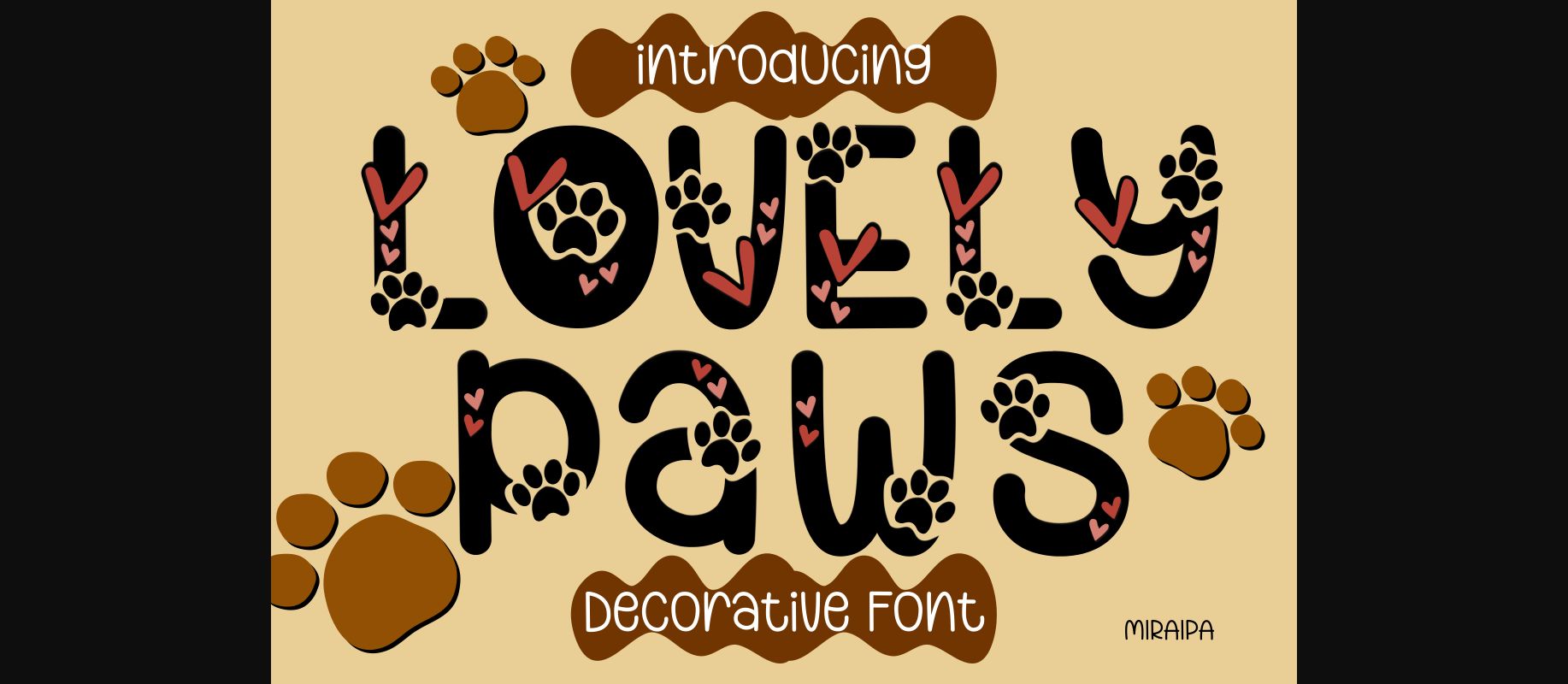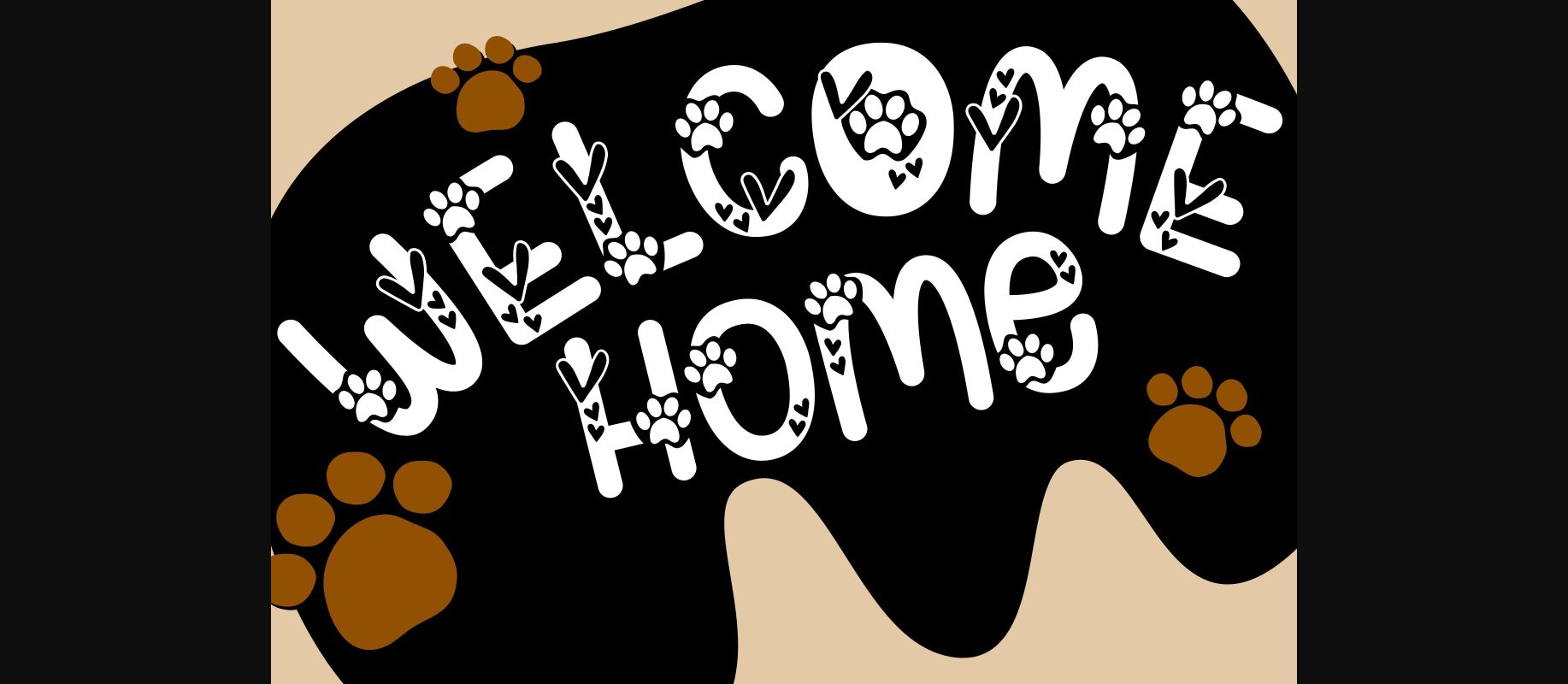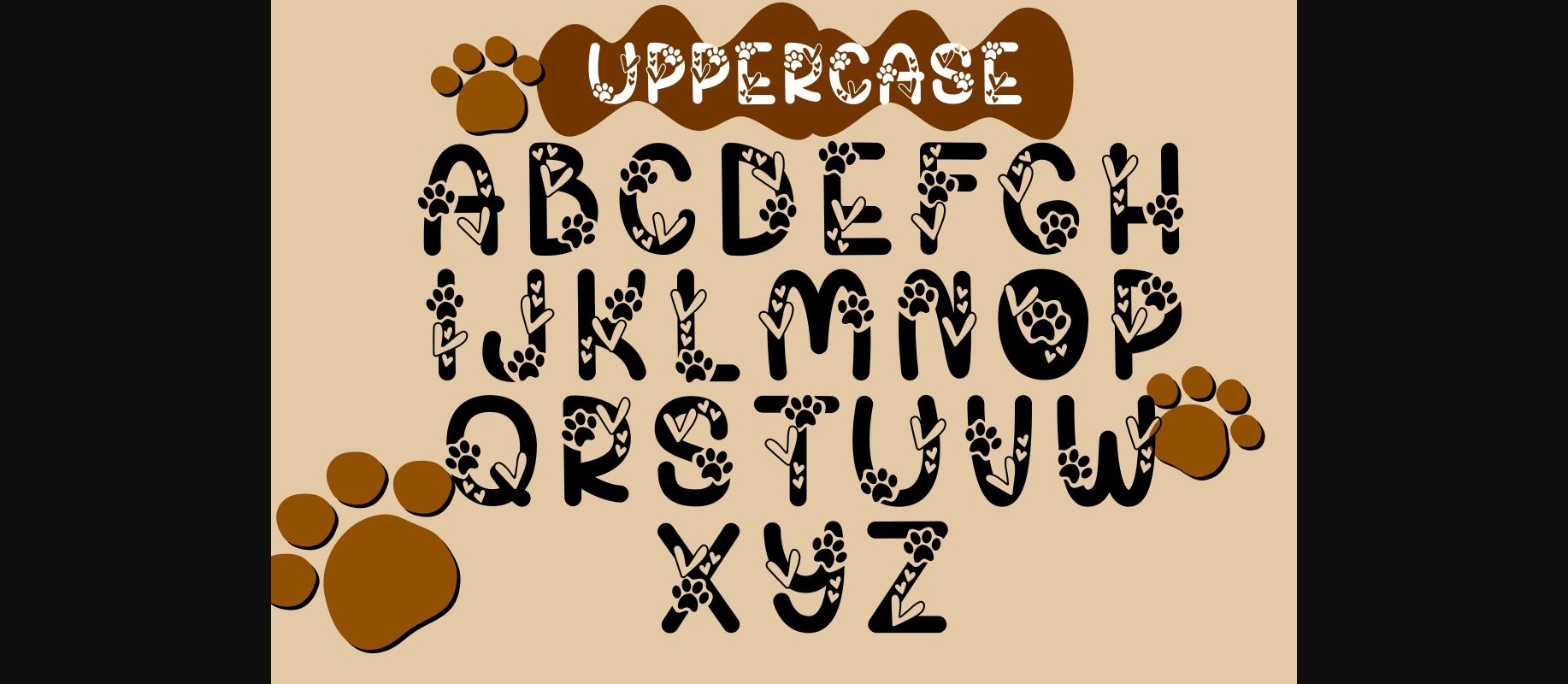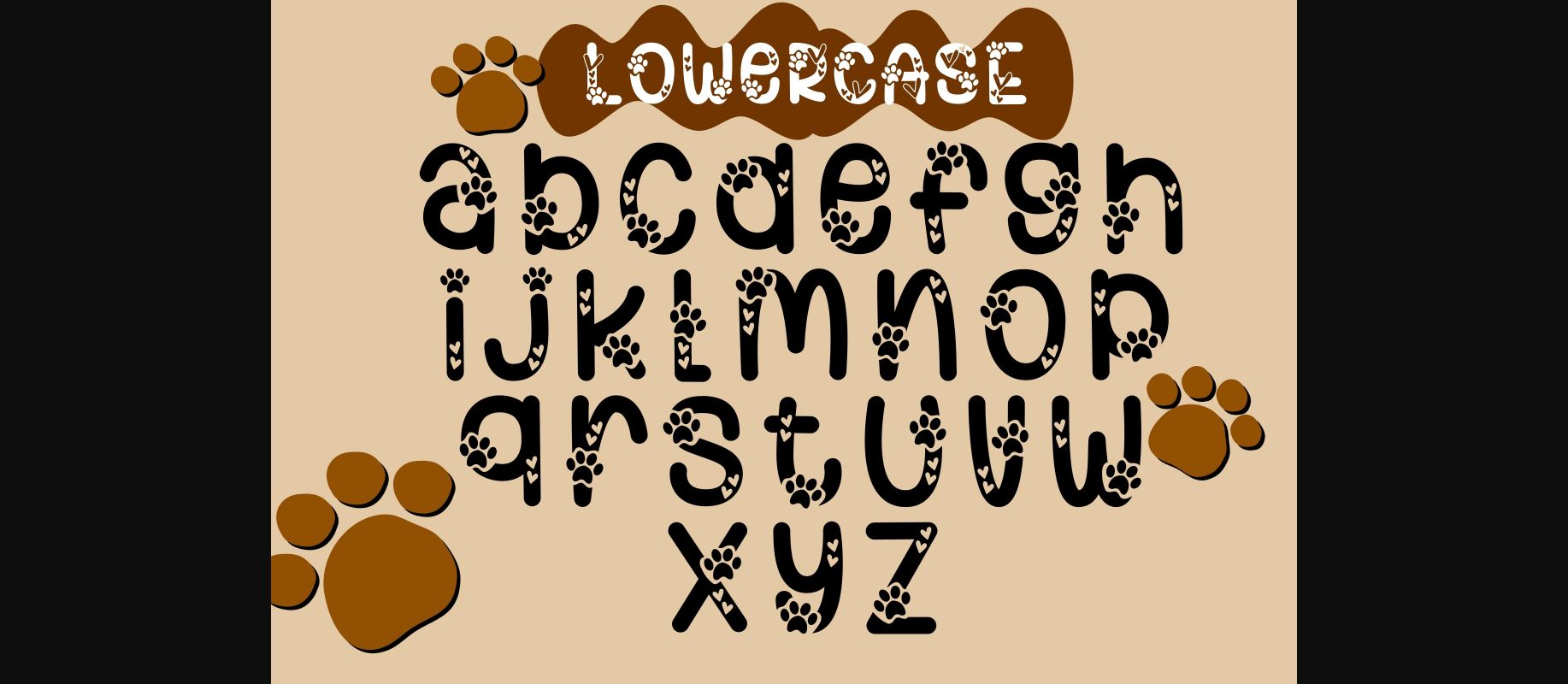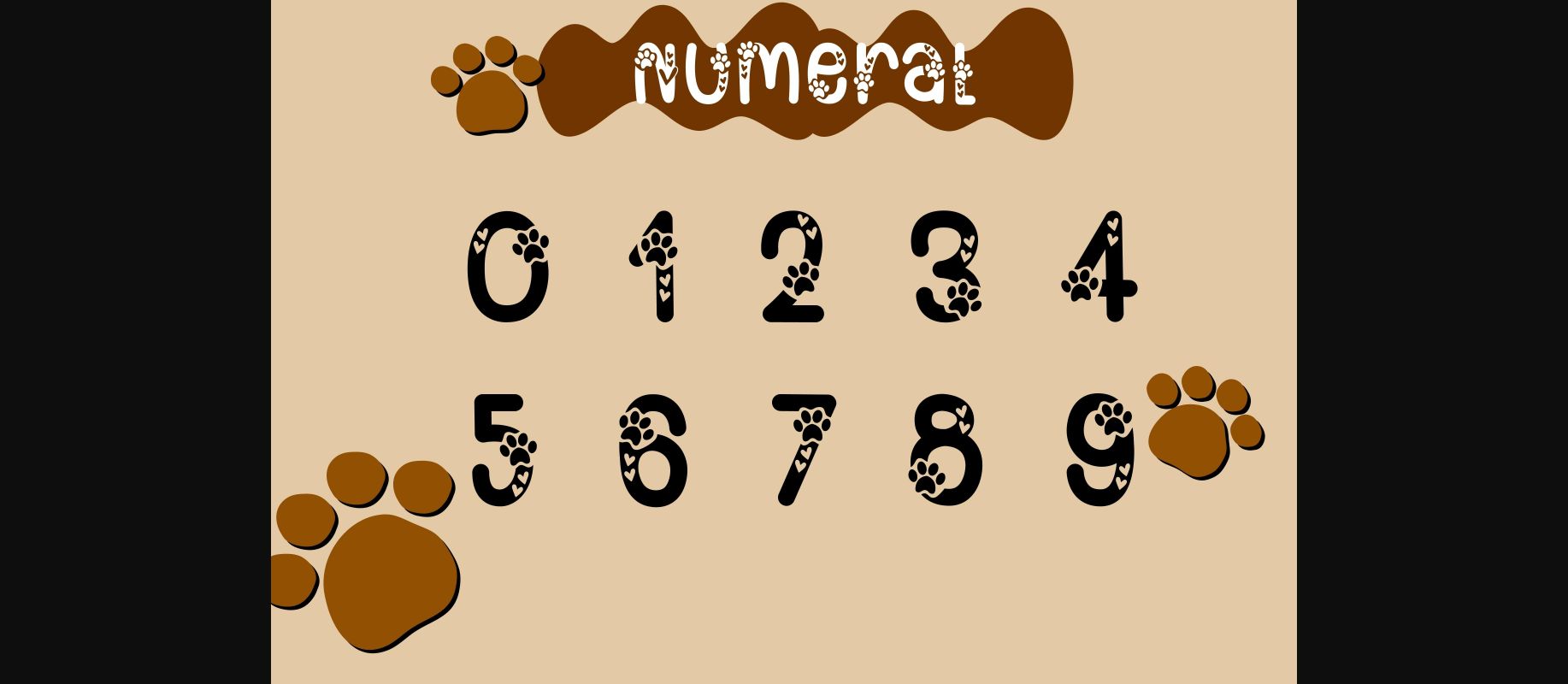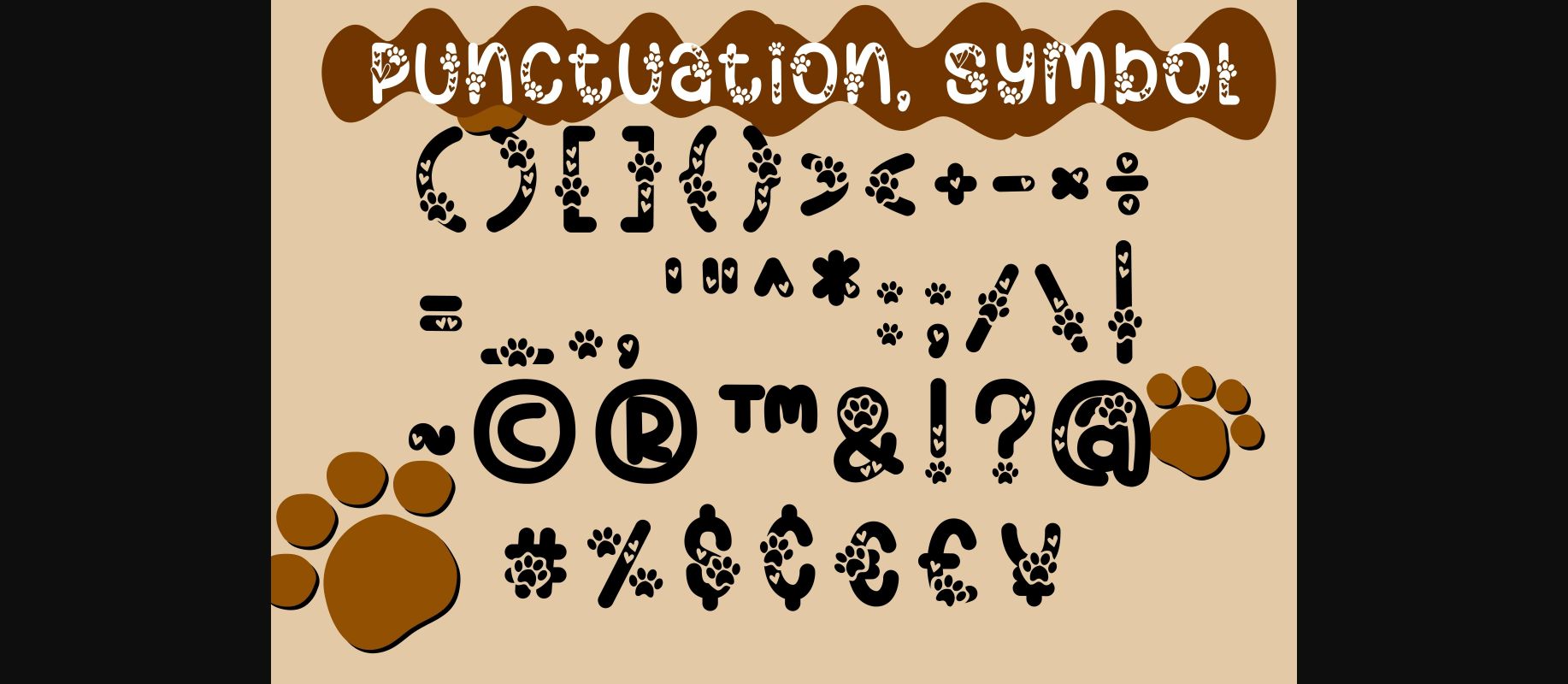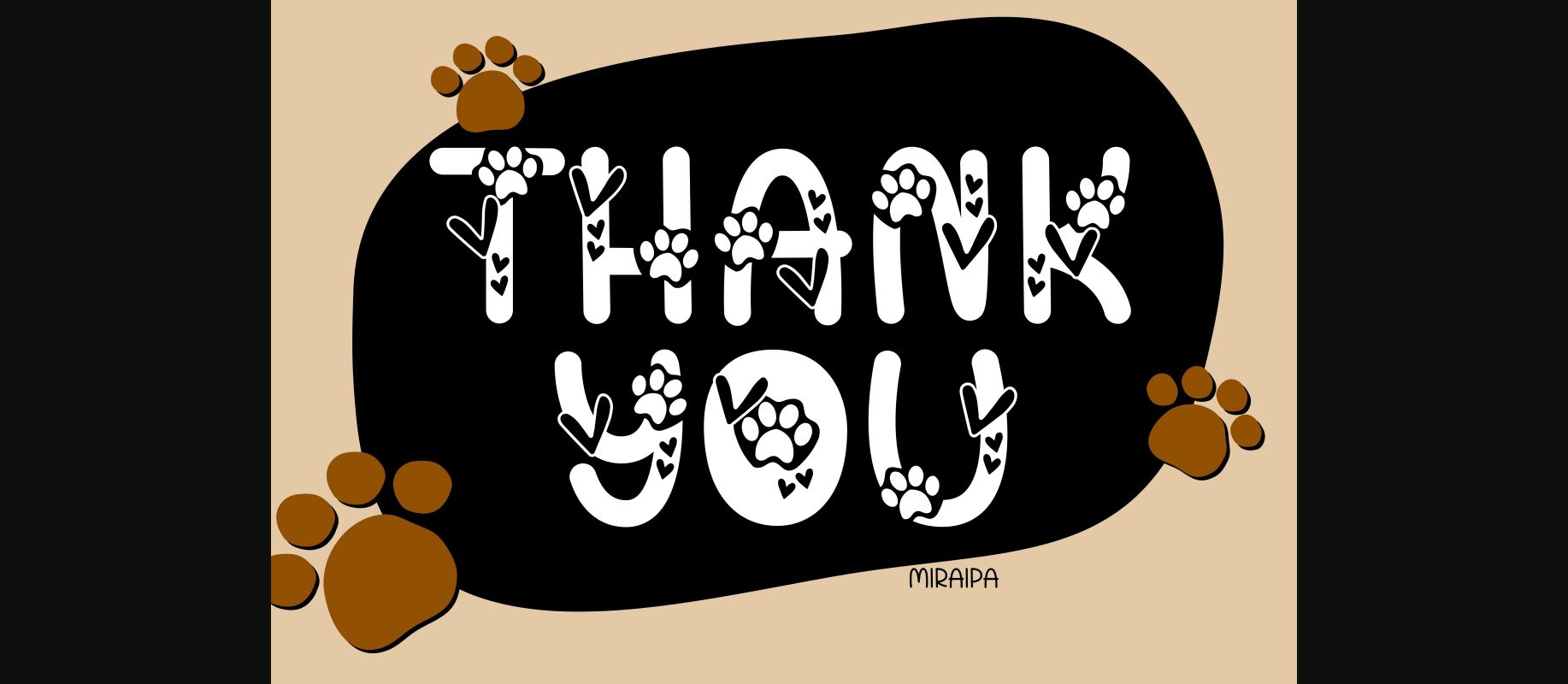
HomeDecorative FontsLovely Paws Font Font Decorative Fonts Lovely Paws Font Font FacebookXPinterestWhatsApp 1 of 9 ... Lovely Paws Font Font Poster 2... Lovely Paws Font Font Poster 3... Lovely Paws Font Font Poster 4... Lovely Paws Font Font Poster 5... Lovely Paws Font Font Poster 6... Lovely Paws Font Font Poster 7... Lovely Paws Font Font Poster 8... Lovely Paws Font Font Poster 9... About Lovely Paws Font Lovely Paws is a sweet and adorable handwritten decorative font. Add it to your creative ideas and you will be amazed by the outcome generated! DOWNLOAD NOW People also explored Jakarta Signature Font Wandering Font Happy Thoughts Font Betteryou Font Brucherie Font Bahamia Font Selena Font Medisonatyl Font Raizo Font 303 0 TagsLovely Paws Font Font Previous articleVita Valentina FontNext articleReindeer Coloring Font LEAVE A REPLY Cancel reply Comment: Please enter your comment! Name:* Please enter your name here Email:* You have entered an incorrect email address! Please enter your email address here Website: Save my name, email, and website in this browser for the next time I comment. Personal Use Free Befindisa Personal Use Free Read more about this font Cranberry Gin Personal Use Free Read more about this font Bashira Personal Use Free Read more about this font Carved Wood Personal Use Free Read more about this font BLOG Top 10 Handwritten Fonts That Elevate Your Designs Top 10 Handwritten Fonts That Will Elevate Your Designs Handwritten fonts bring a warm, personal touch to every creative project. Whether you're designing logos, invitations,... Fonts That Capture the Spirit of New York City 5 Fonts That Will Dominate Design Trends in 2026 Free vs Paid Fonts: Why Investing in Premium Fonts Is Worth It